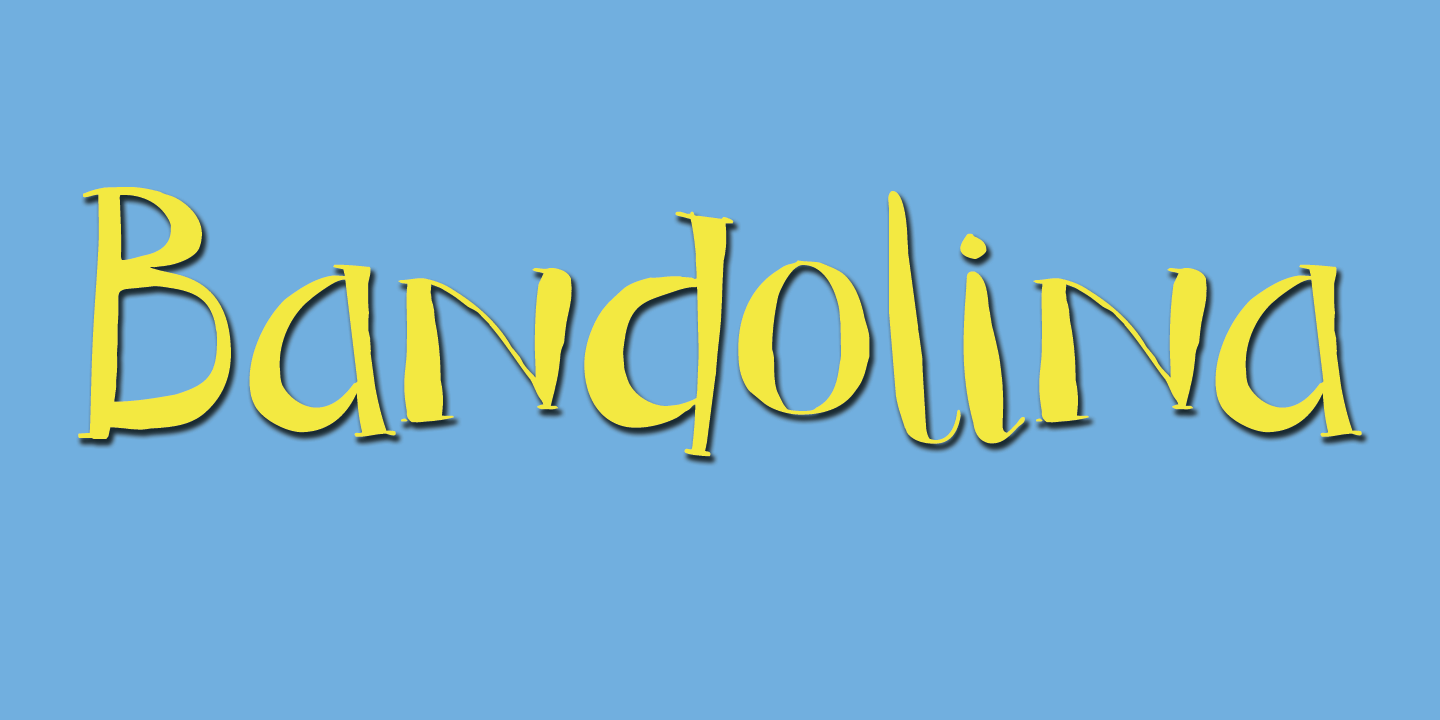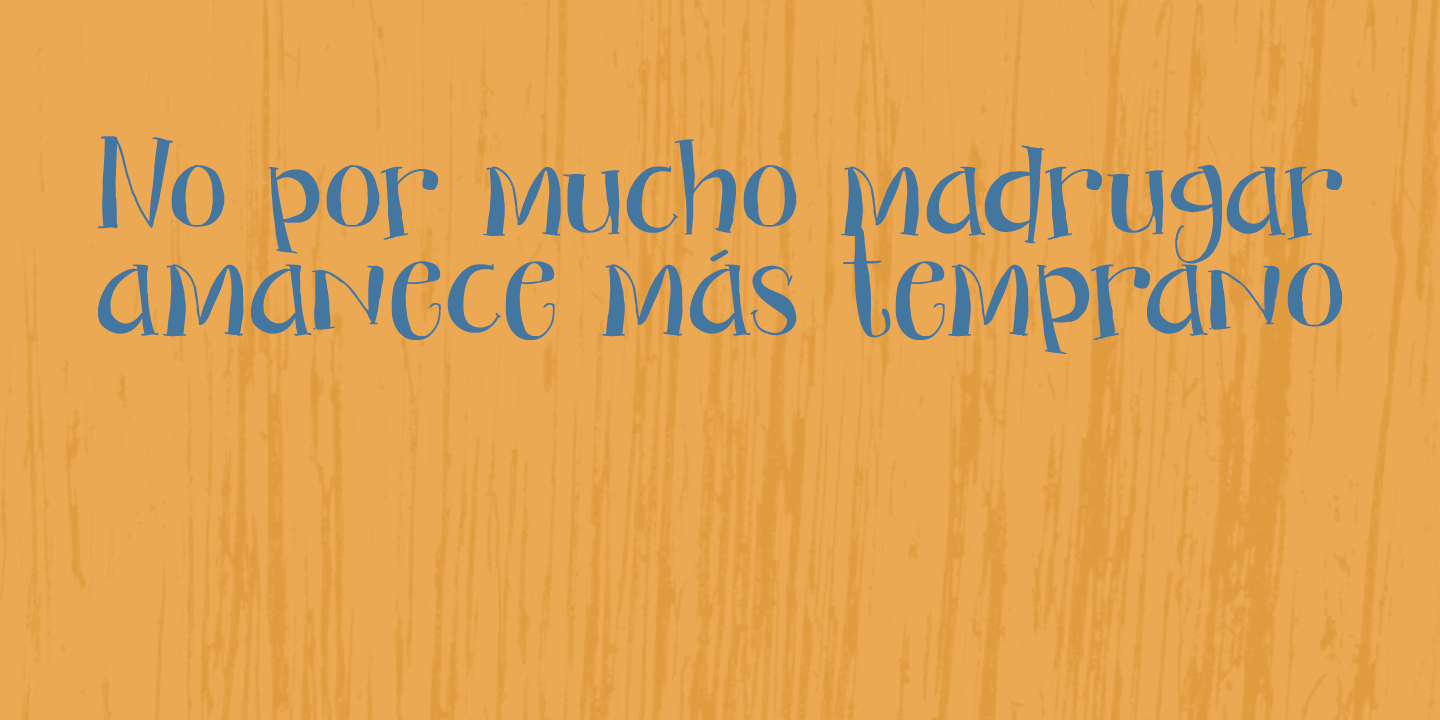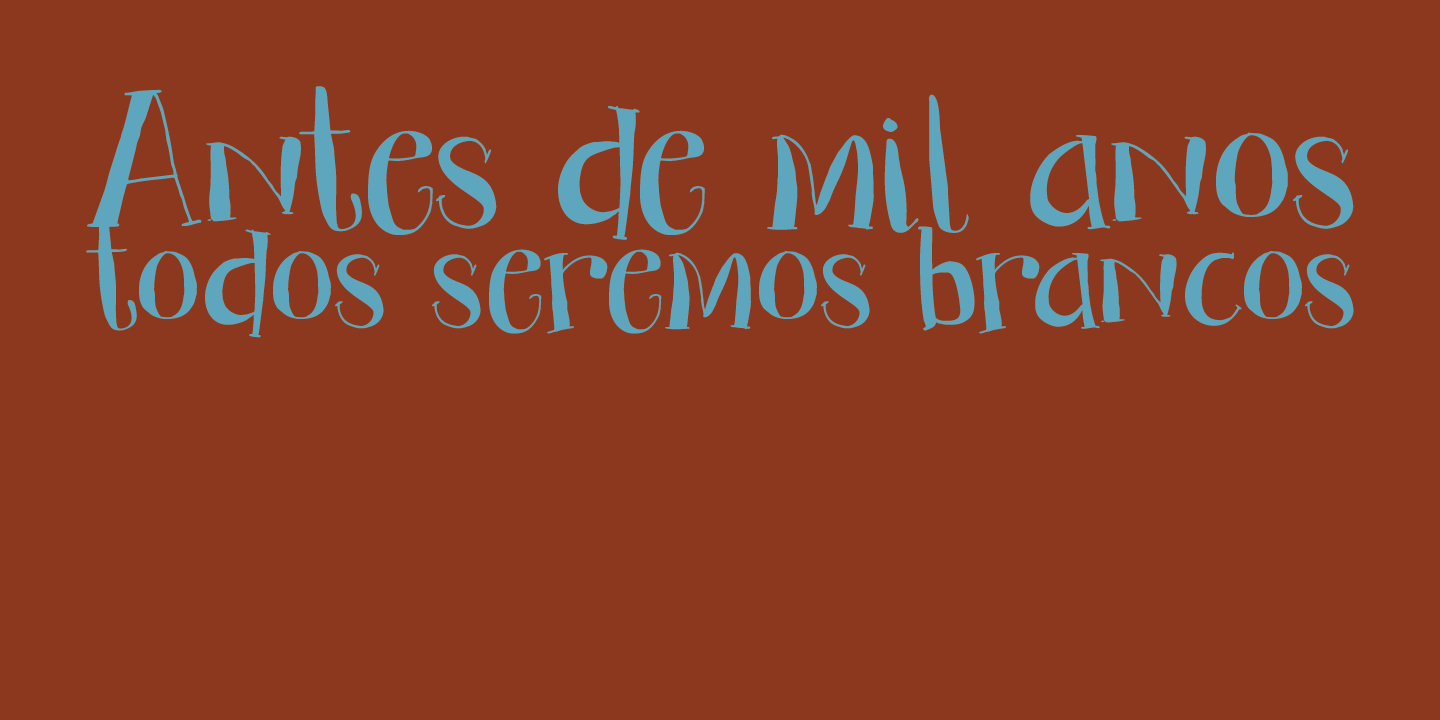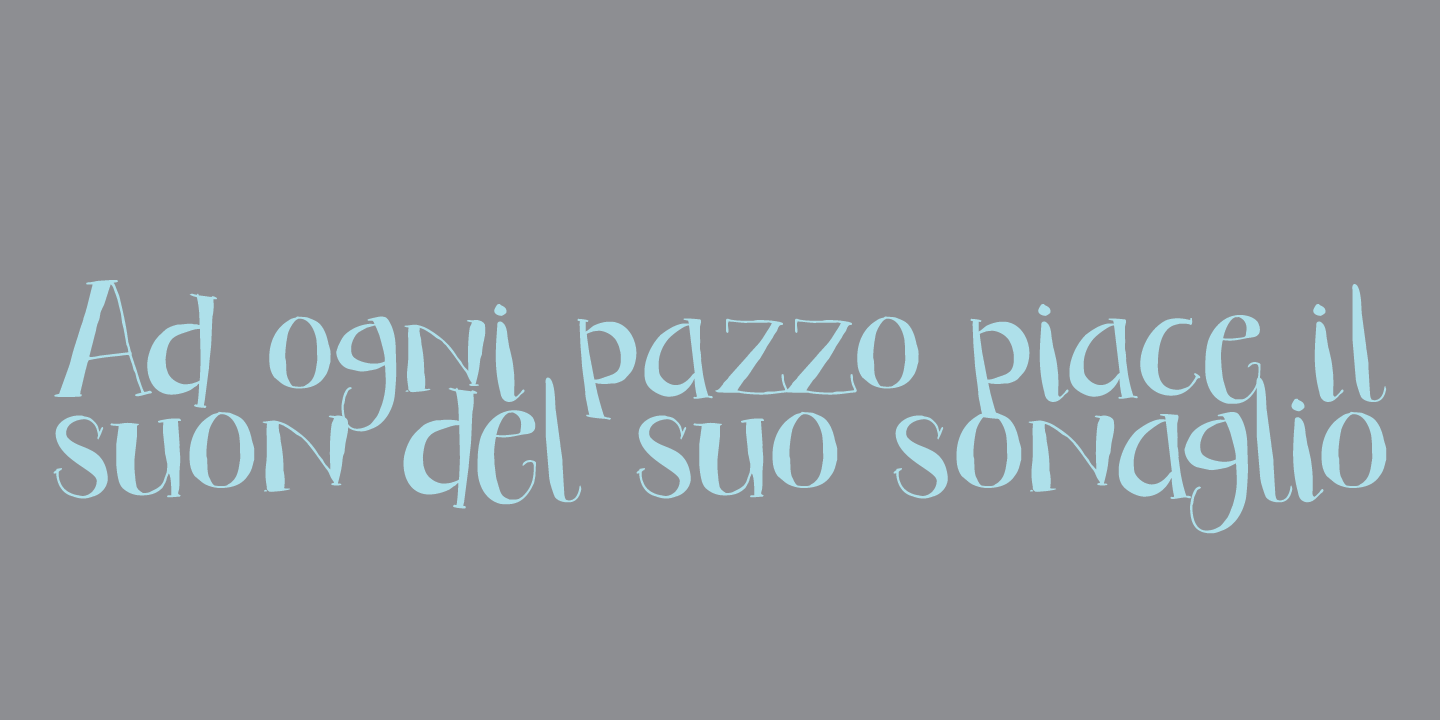
Bandolina
Bandolina is a fun, hand drawn typeface. Didone-ish, off-key, jumpy and full of happy glyphs. It comes with a bagful of quirkiness, a pinch of eccentricity and a full range of diacritics.